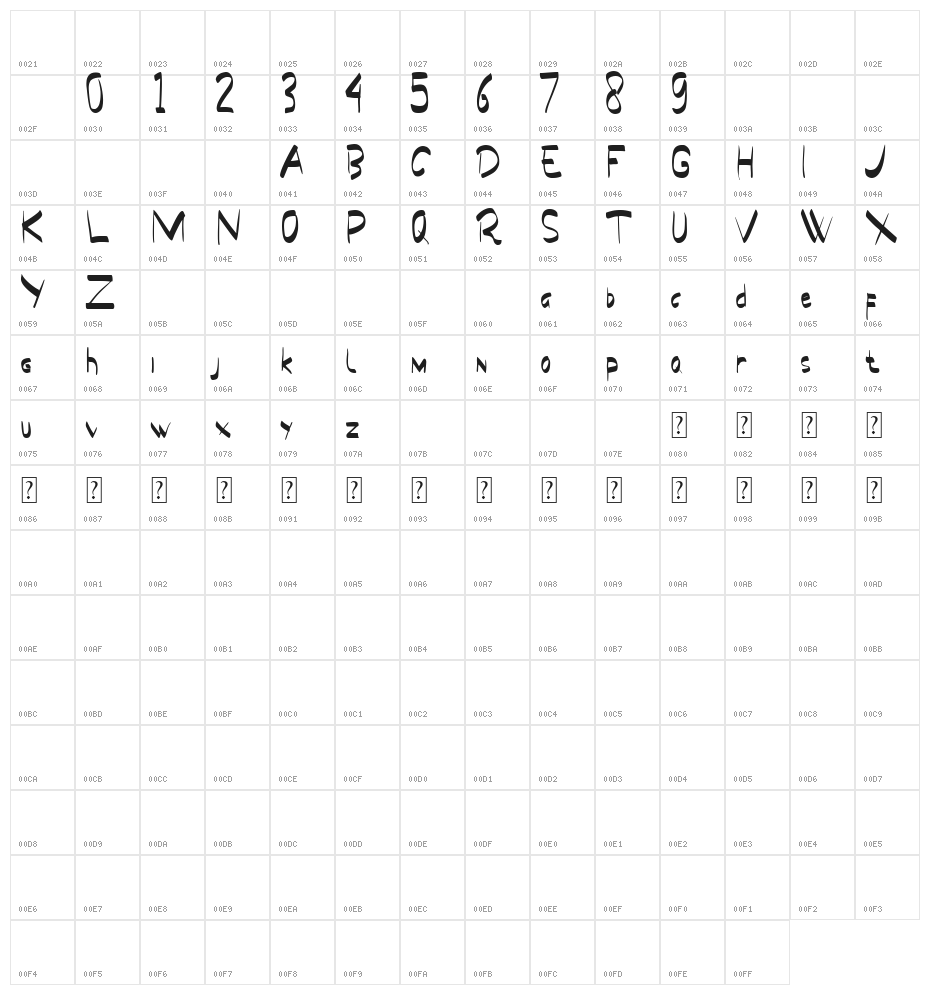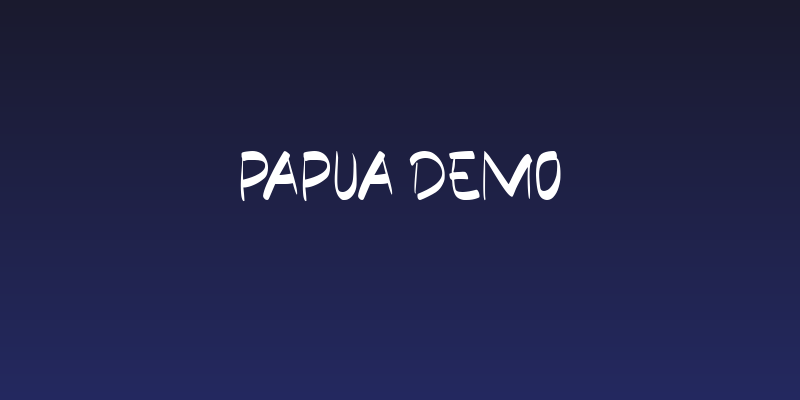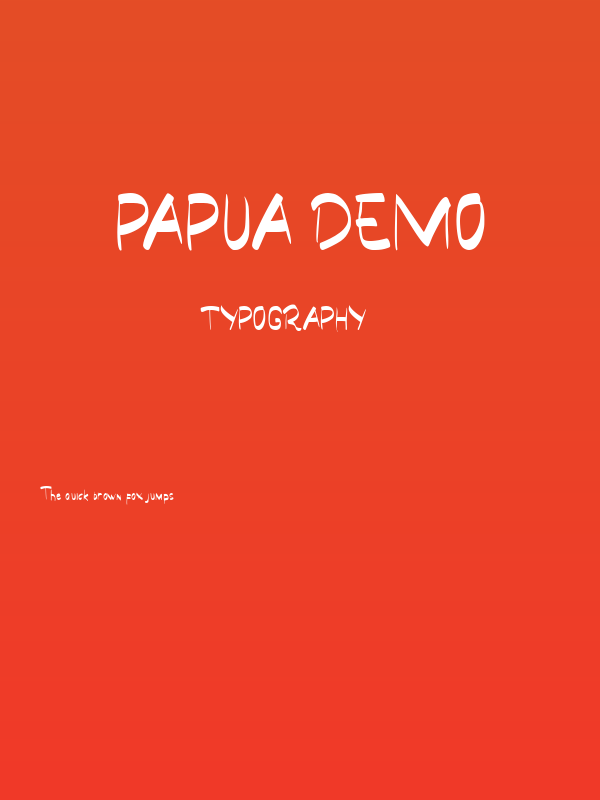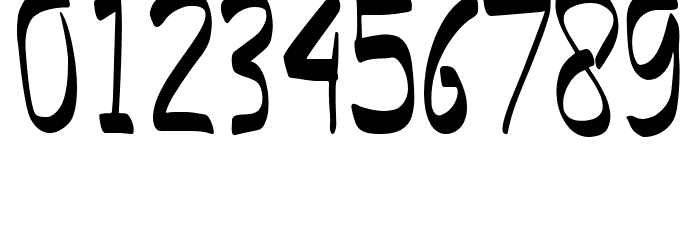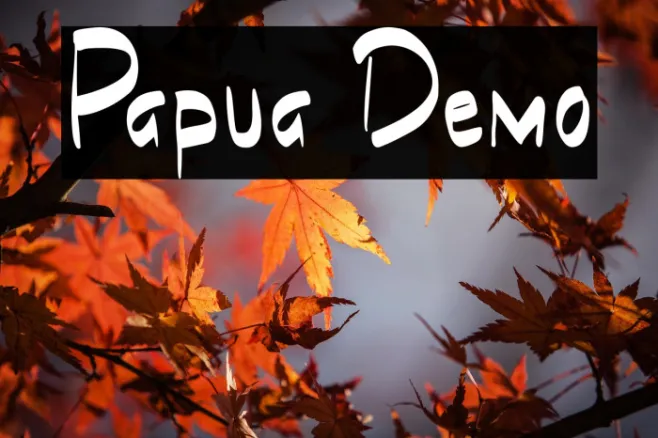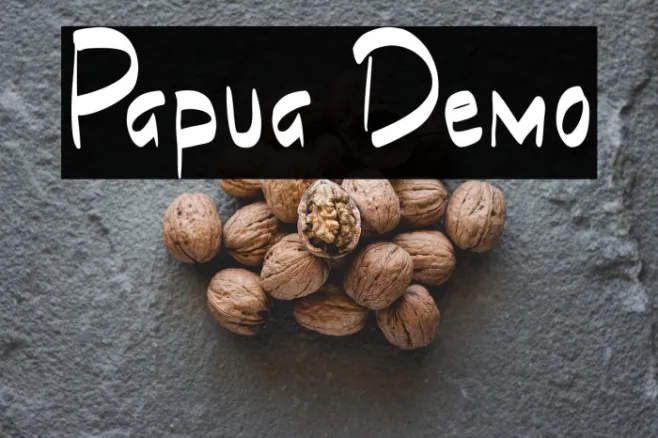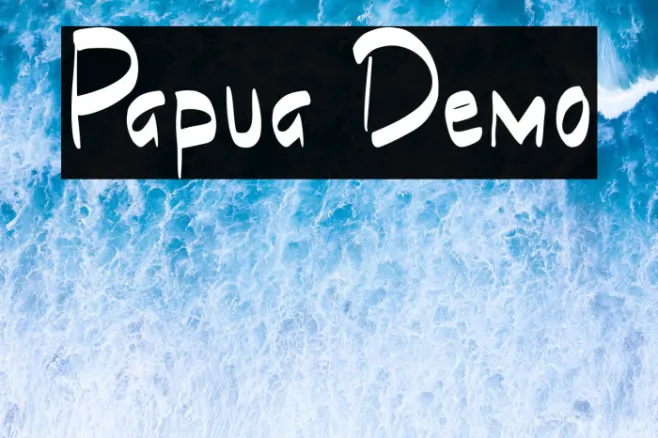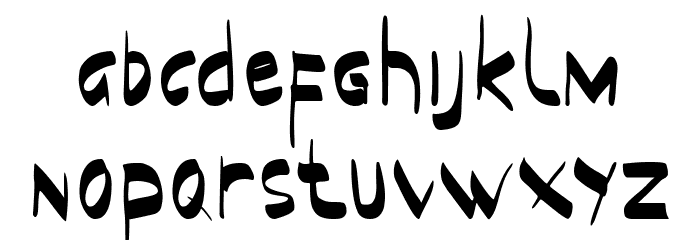
Papua Demo Font
Papua Demo Description
This font features a unique, hand-drawn style with an organic and slightly irregular appearance. The characters have a playful and artistic flair, with varying stroke thickness that adds to its dynamic look. The uppercase letters are bold and expressive, while the lowercase letters maintain a consistent style with a slightly more subdued presence. The numbers are distinct and follow the same artistic theme, making them easily recognizable. Special characters are integrated seamlessly, maintaining the overall aesthetic. This font is perfect for projects that require a creative and informal touch.
| Proposed Projects | Ideal for creative projects such as posters, invitations, and branding materials that require a unique and informal touch. |